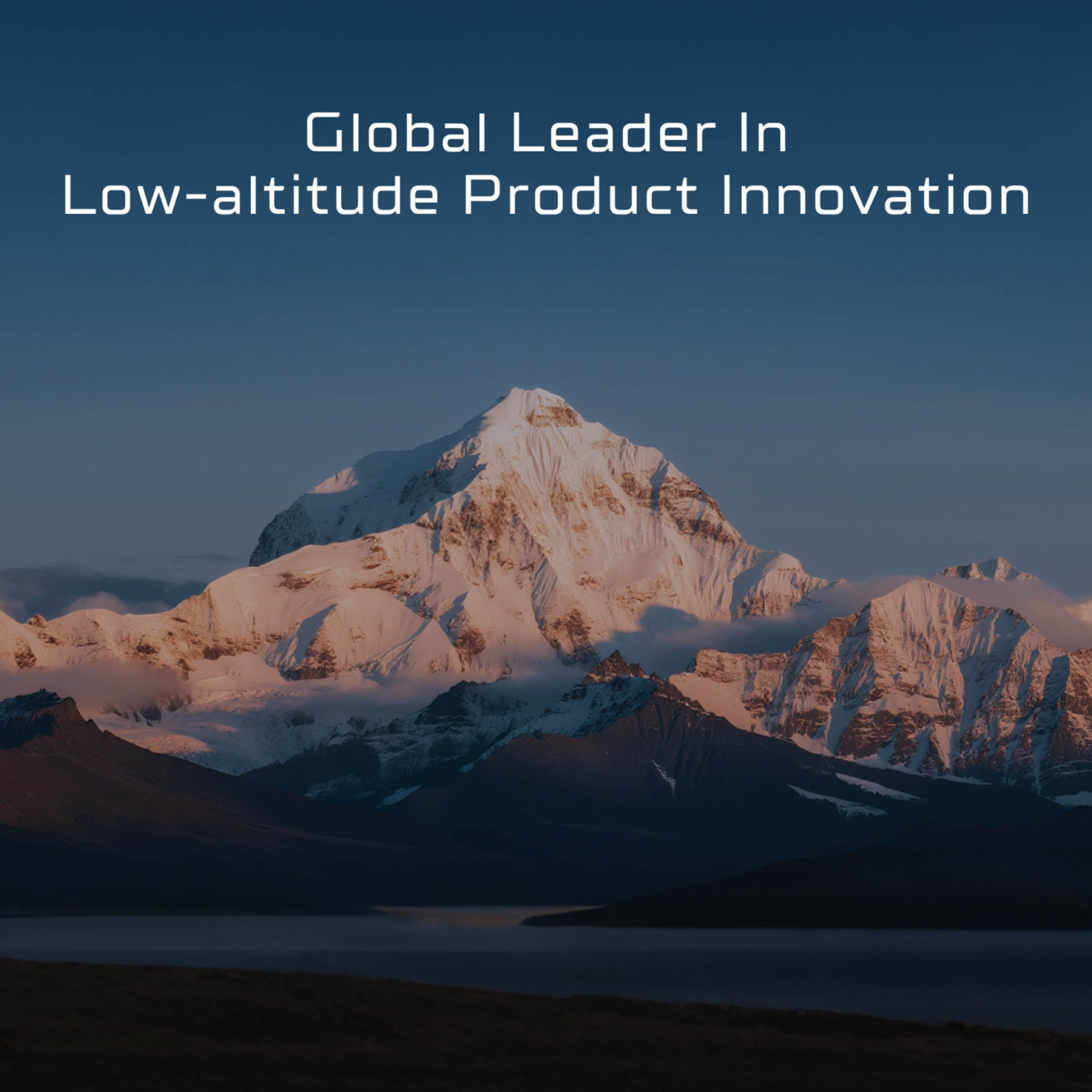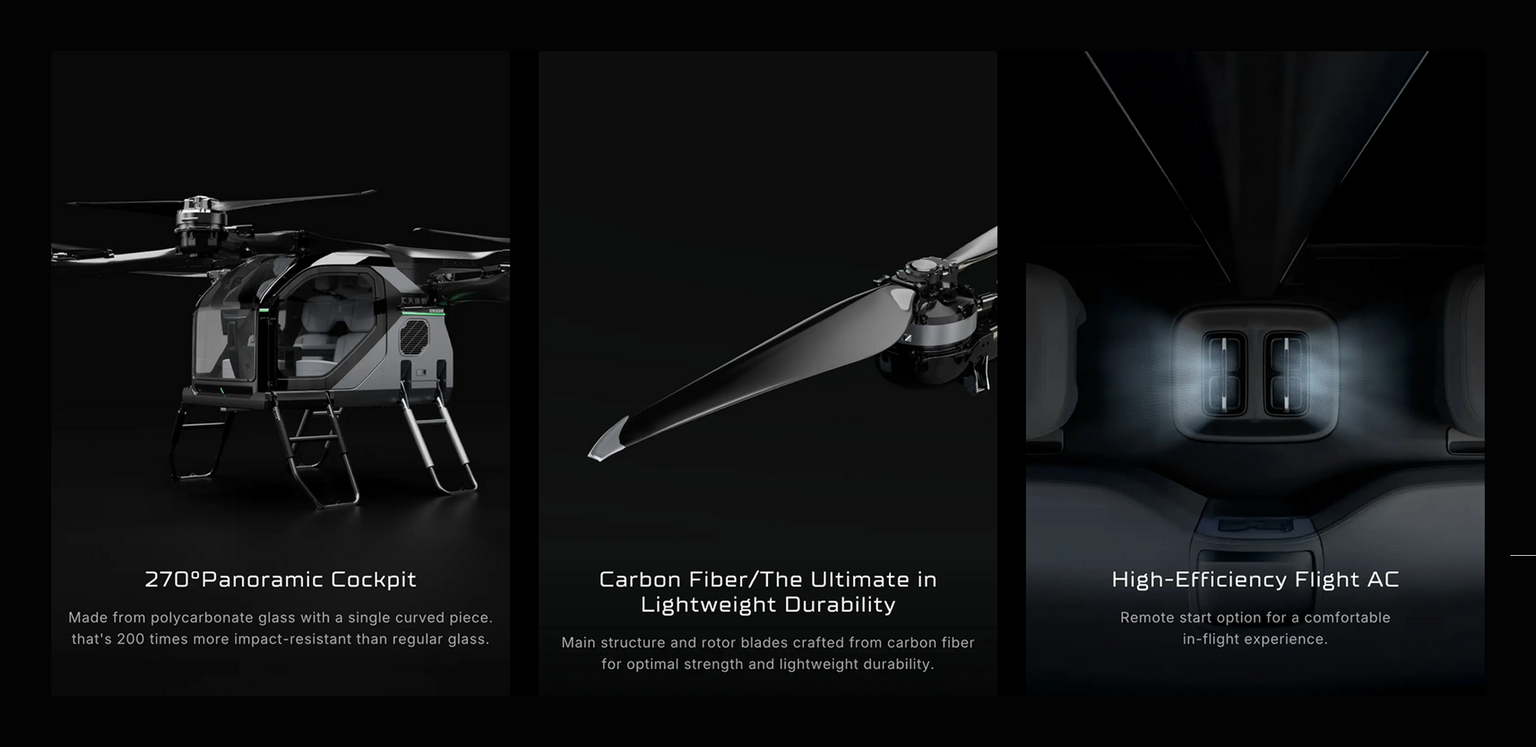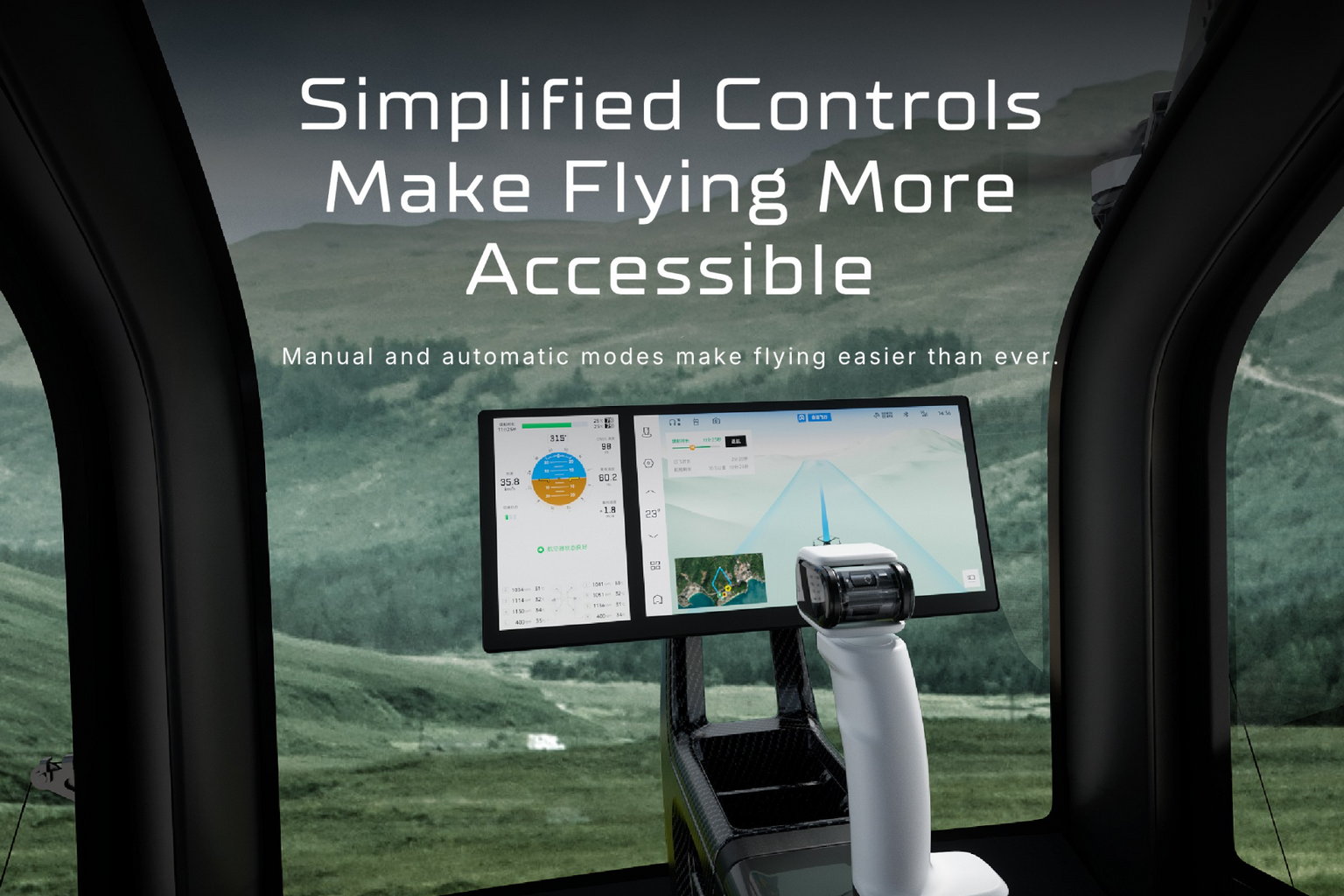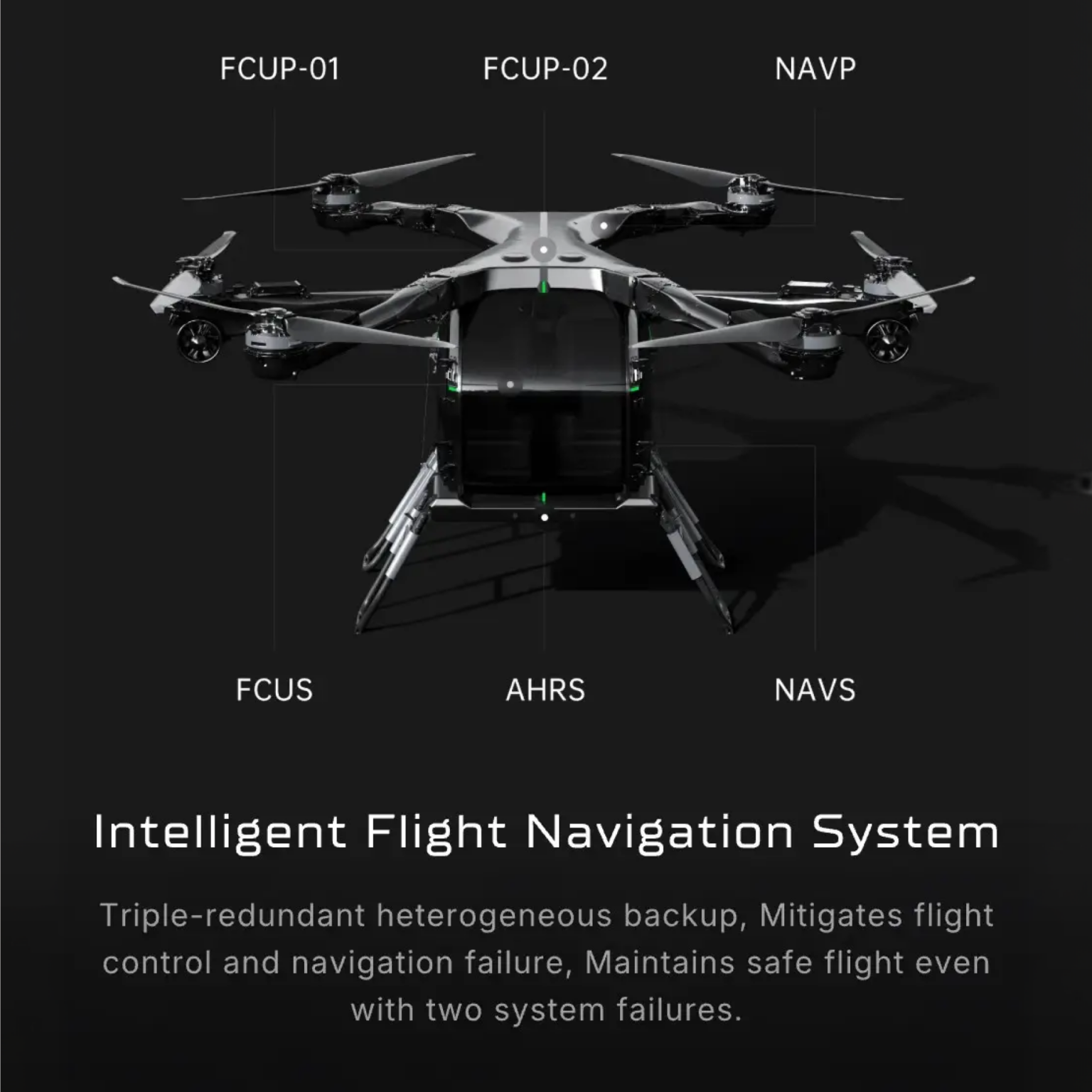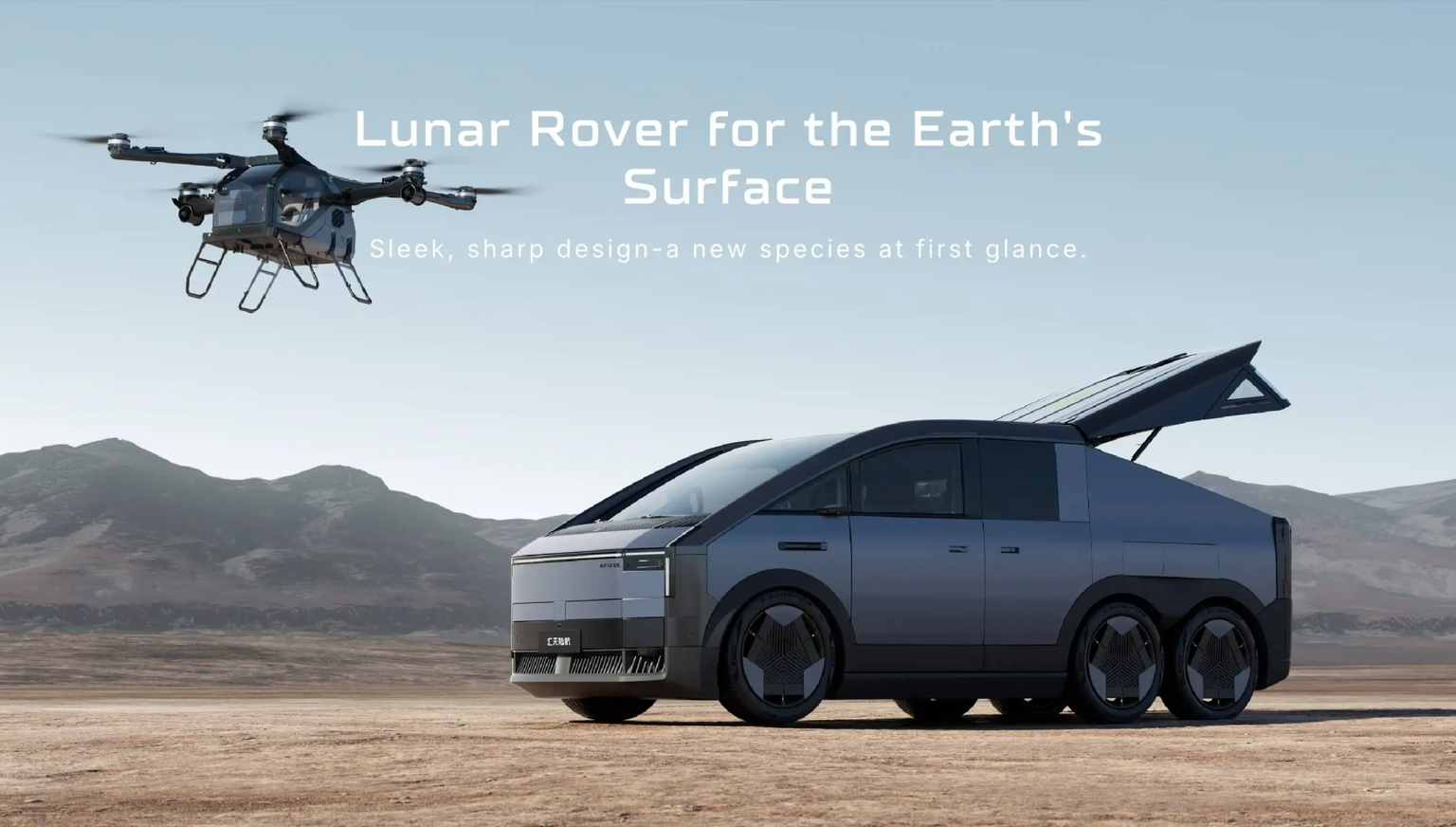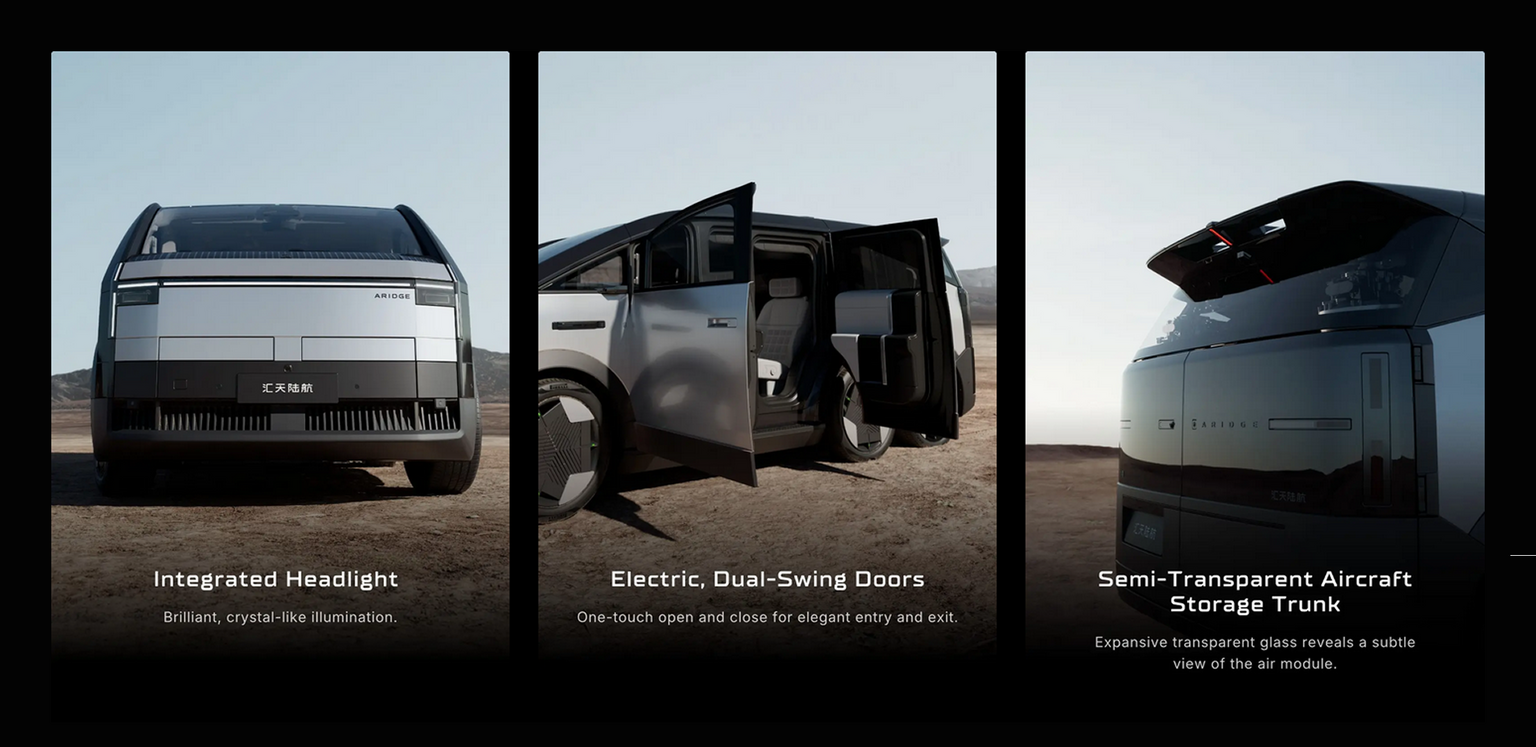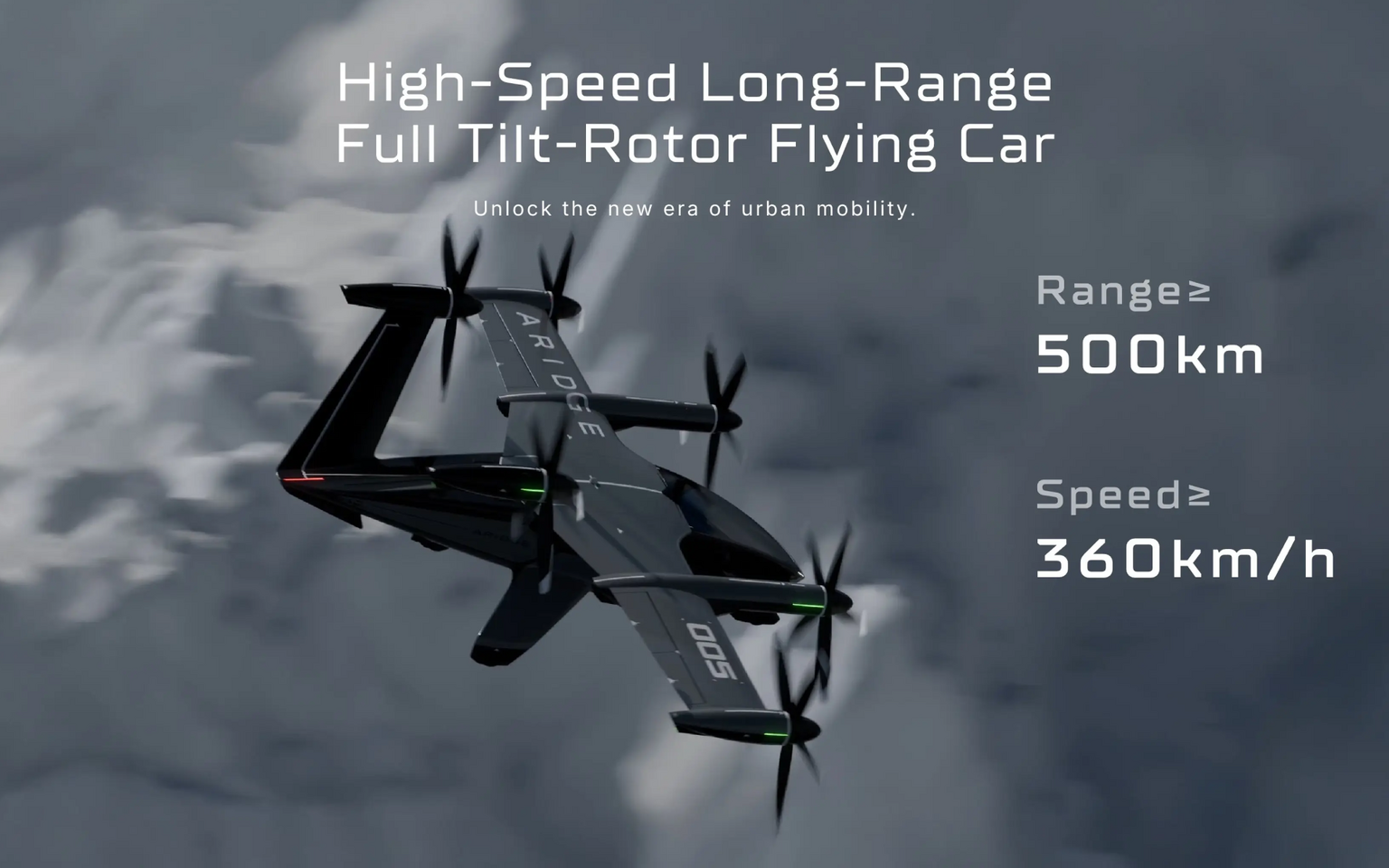
TT Supermolot Neue has become the corporate font for Aridge.
Aridge is a Chinese company specializing in the development of flying cars and hybrid transportation solutions for land and air travel. TT Supermolot Neue enhanced the dynamic style and emphasized the company’s high-tech image.